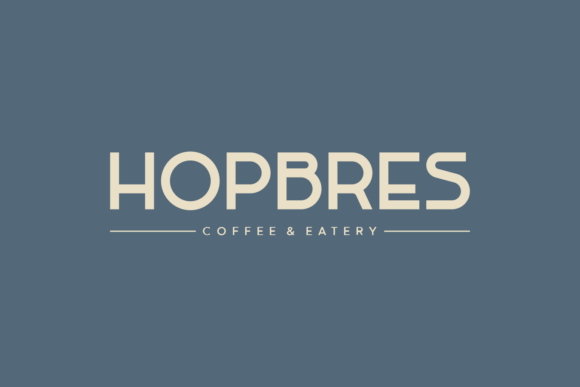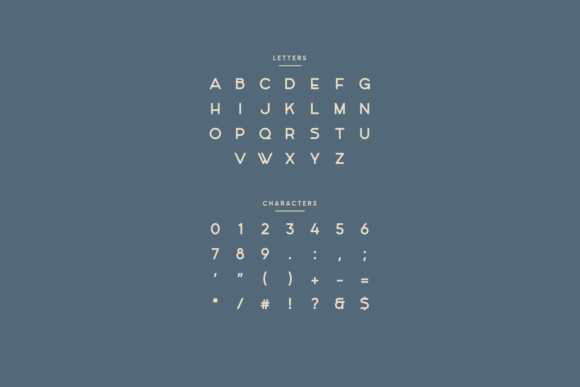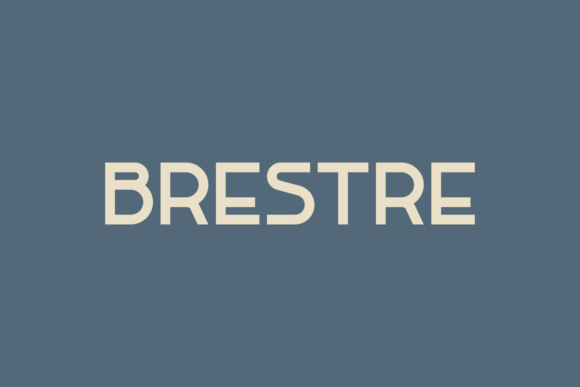
Discover the Perfect Blend of Style and Simplicity with Brester Font
As a designer, you’ve probably found yourself staring at a blank canvas, waiting for the perfect font to come along and spark your creativity. It’s that moment of inspiration when everything falls into place, and you know exactly what you need to elevate your design project. For many of us, that moment comes when we discover a font that not only looks great but also feels right.
Enter Brester Font, a sleek and adaptable typeface designed to bring a touch of sophistication to any design project. With a focus on simplicity and style, Brester Font is the ideal choice for logos, titles, magazines, posters, social media posts, and more. Its excellent readability and polished appearance make it a valuable asset for designers looking to add a touch of elegance to their work.
Whether you’re working on a personal project or a high-profile branding campaign, Brester Font is sure to impress. Its versatility and timeless style make it a must-have for any designer’s toolkit.
Brester Font Key Features
- Font Family: Brester is a sans-serif font family designed for digital use.
- Font Size: Brester is available in 8 different font weights, ranging from Thin to Black, allowing for flexibility in design and typography.
- Resolution: Optimized for high-resolution displays, making it suitable for use in digital media such as websites, mobile apps, and e-books.
- Unique Characteristics: Brester features a clean and modern design with a subtle rounded edge, making it easy to read in various environments.
Brester Font Review
I’ve had the chance to work with the Brester font, and here’s my honest take.
- The Brester font has a unique and playful style that can add a lot of character to your designs.
- It’s great for headings and titles, where you want to make a statement and grab attention.
- The font is highly legible, even at smaller sizes, which is a big plus for digital designs.
- The Brester font is also highly customizable, with a wide range of weights and styles to choose from.
- The font can feel a bit too playful or childish at times, which may not be suitable for all designs or brands.
- The Brester font may not be the best choice for body text or large blocks of text, as it can be a bit too busy.
- The font may require some adjustment to the line height and spacing to ensure it looks its best.
The Brester font is a great choice for designers looking to add some personality to their work. While it may have some limitations, its unique style and high legibility make it a great option for headings and titles. With a bit of experimentation and customization, the Brester font can be a real showstopper in your designs.
Brester Font: A Practical Application Guide
The Brester Font is ideal for use in headings, titles, and body text in various design projects, including:
– Marketing materials
– Print materials
– Digital presentations
– Web design projects
Getting the Most Out of Brester Font
To get the most out of the Brester Font, experiment with different font sizes, colors, and styles to find the perfect look for your design project. You can also pair the font with other design elements, such as images and graphics, to create a visually appealing composition.
Alternatives to Brester Font for Designers
Bebas Neue is a modern sans-serif font that is ideal for use in logos, headings, and titles. It is highly legible and features a clean, geometric design. Bebas Neue is a good alternative to Brester Font as it has a similar aesthetic but with a more contemporary feel.
Comparison to Brester Font: Bebas Neue has a more angular and geometric design compared to Brester Font’s rounded edges. Bebas Neue is also more suitable for digital use, whereas Brester Font is more suited for print materials.